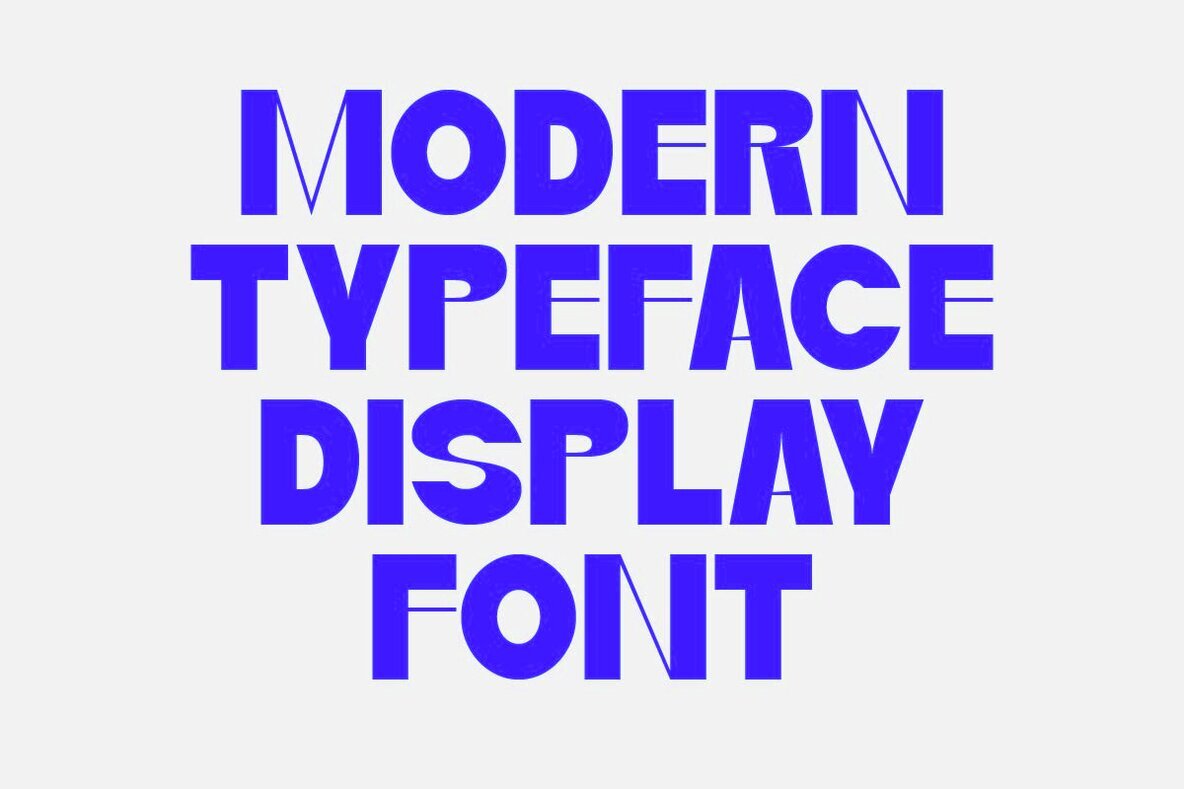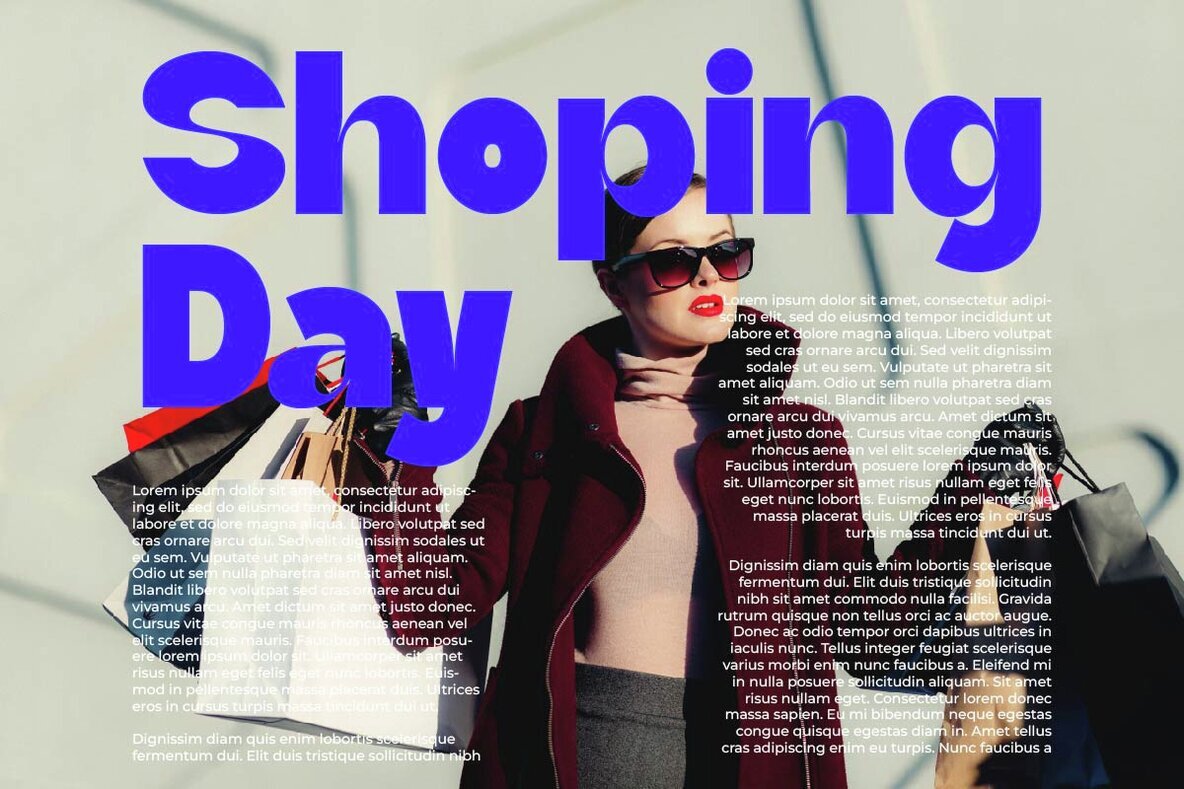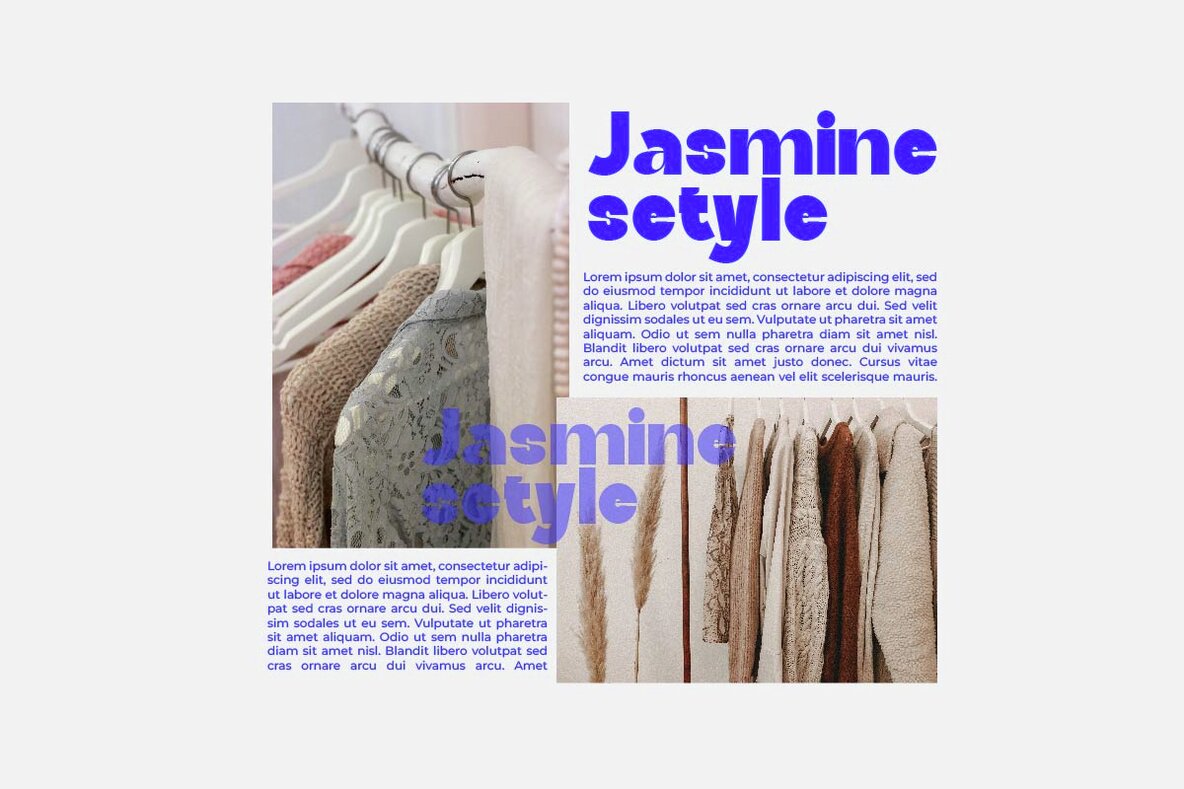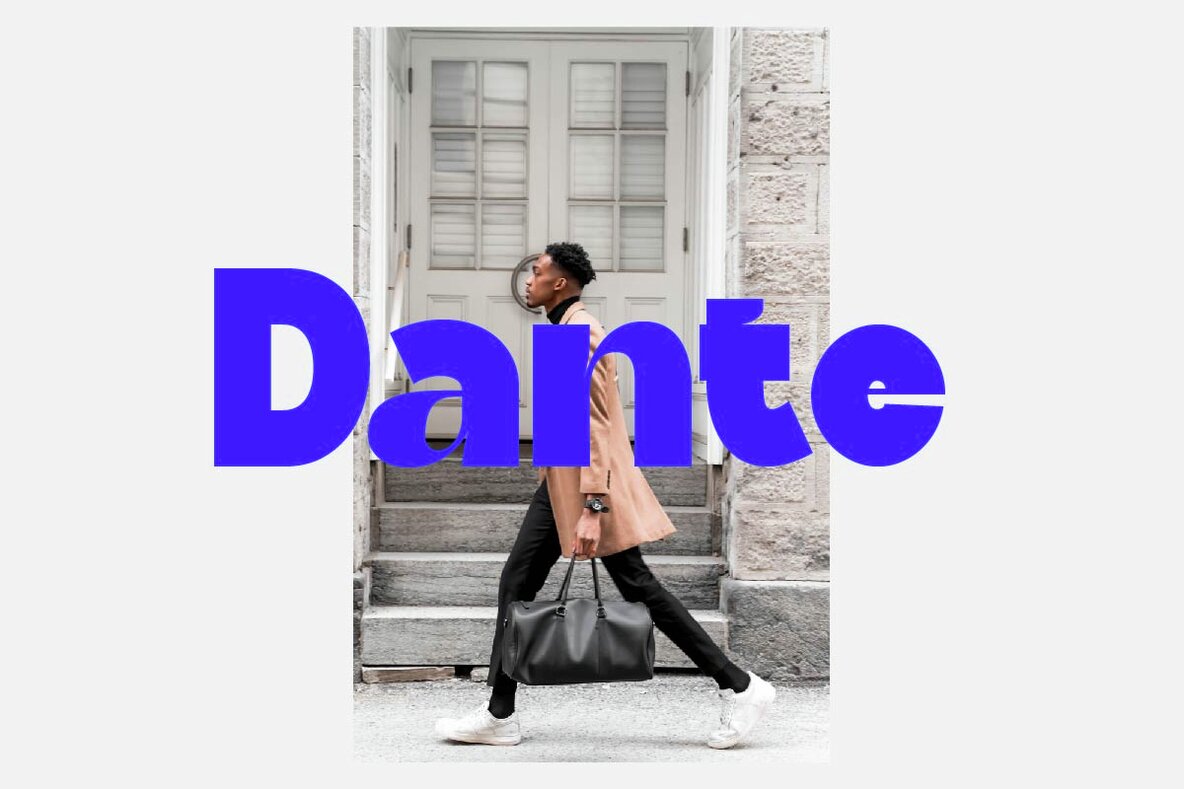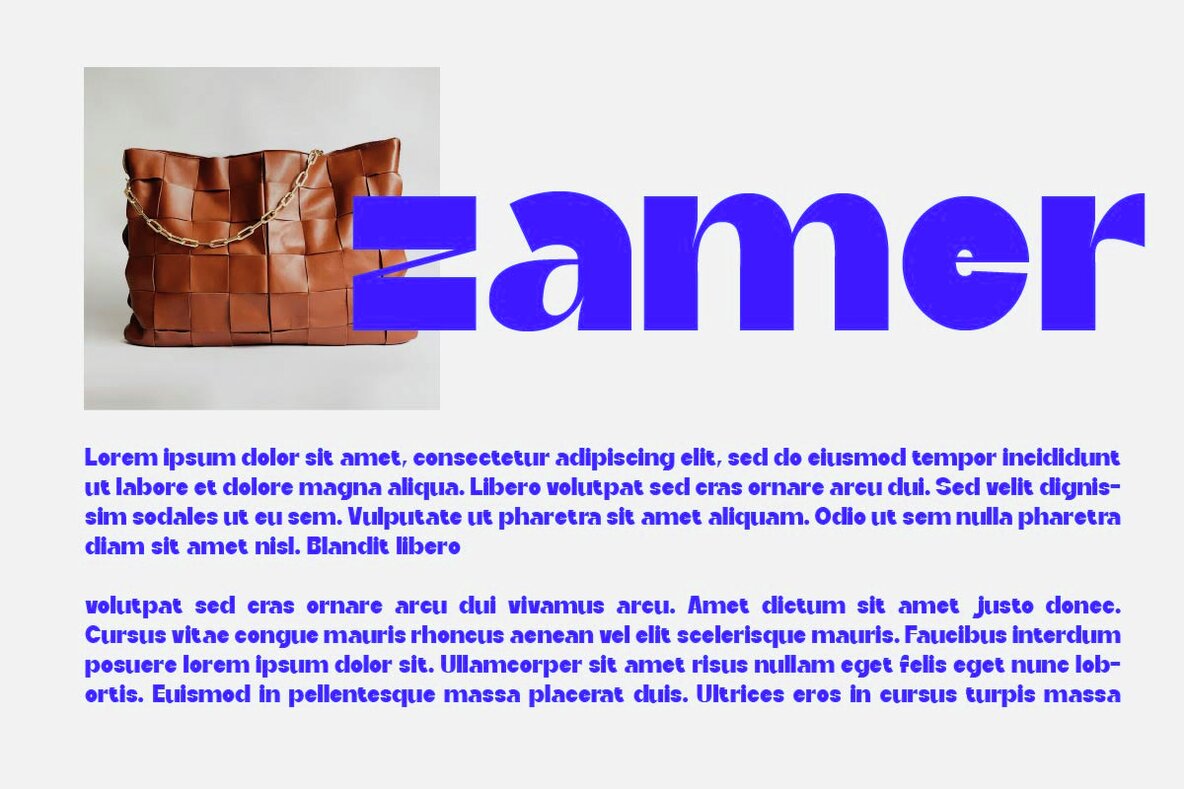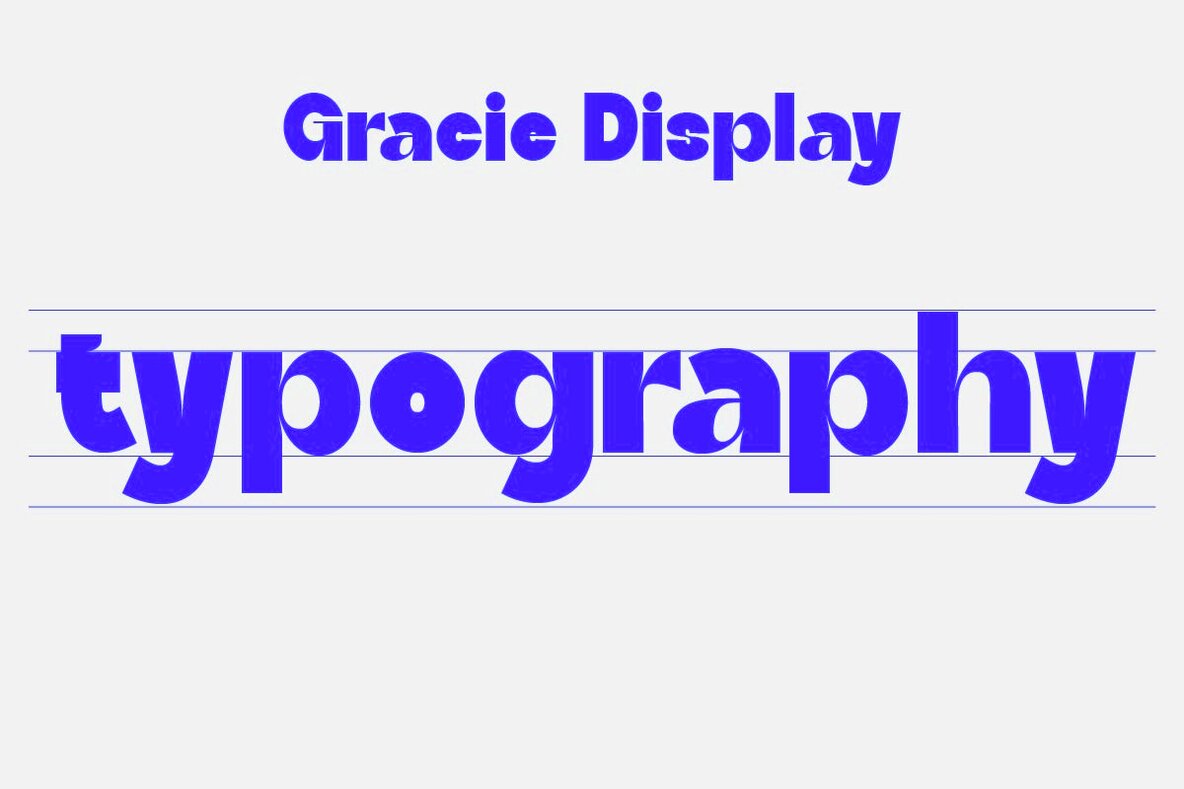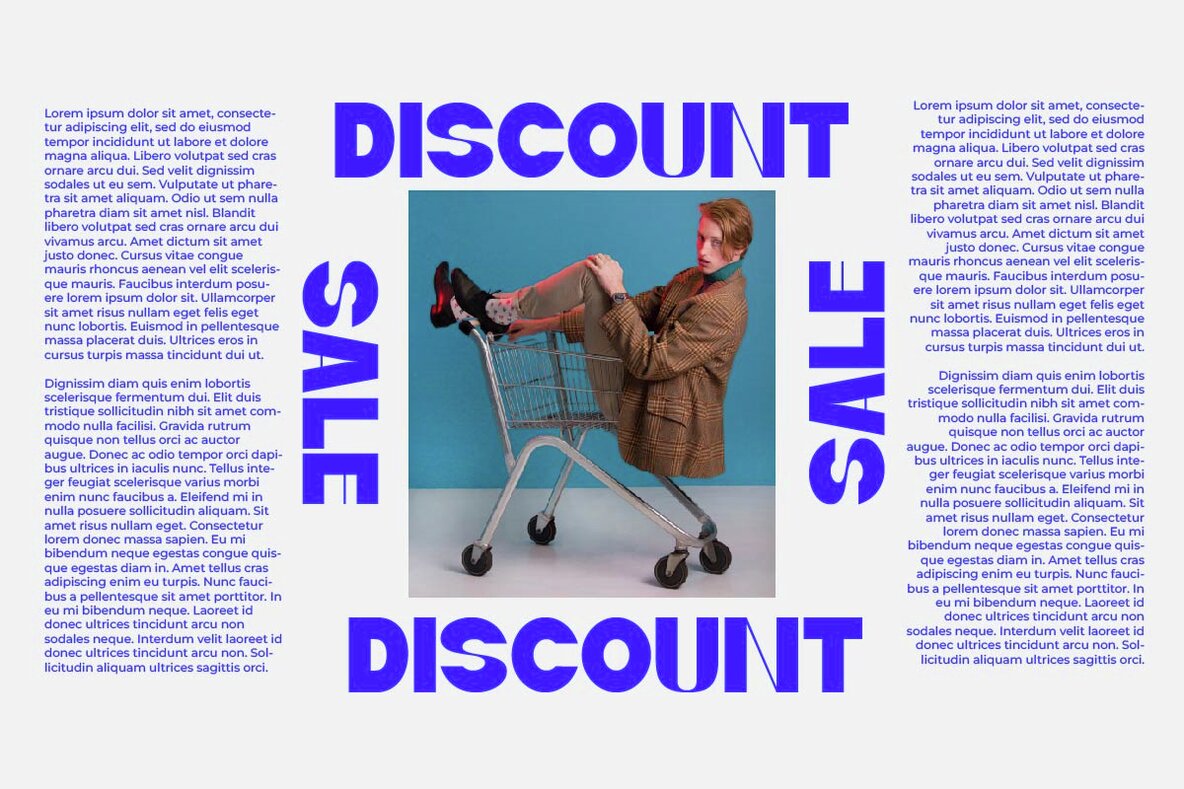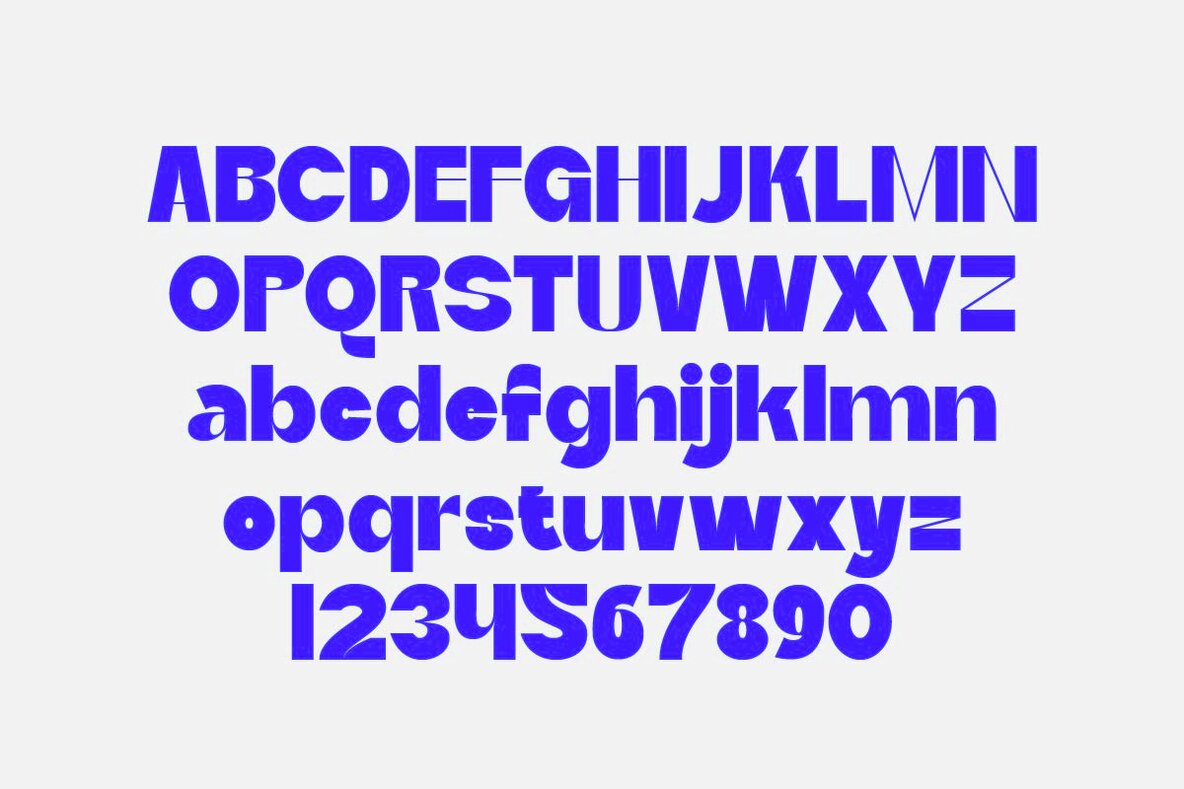
Gracie Font
Gracie Regular
Gracie, a modern display font, exudes an elegant and contemporary vibe, making it the ideal choice for crafting a strong brand identity, particularly within the fashion industry. With its clean and proportional design, this typography seamlessly blends modern and artistic elements, creating a harmonious balance between boldness and sophistication. Each letter is meticulously crafted, producing an exclusive and captivating appearance that imparts a unique and classy touch. The clarity of its form and the flexibility of its design make Gracie well-suited for various design purposes, especially for fashion industry logo branding. In application, Gracie adeptly captures the essence of desired style and luxury, leaving a professional and innovative impression. With accents and typographic details serving as key elements, Gracie stands as the perfect choice to convey a brand's message with boldness and elegance, while effortlessly aligning with the latest styles and trends in the fashion world.